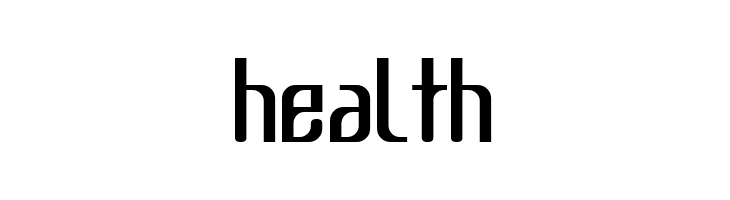
A bold, geometric font with a futuristic and industrial design.
An elegant, flowing script font with delicate, interconnected strokes.
A bold, hand-painted style font with dynamic, brush-like strokes.
A playful, handwritten font with elongated, slanted letterforms and consistent stroke weight.
A delicate and elegant font with thin, elongated strokes and slight contrast.
A thin, decorative font with elegant curls and artistic flair.
A bold, geometric font with a futuristic and industrial aesthetic.
A bold, futuristic font with angular, geometric shapes and a tech-inspired design.
Pixelated monospaced Japanese font with a retro digital style.
A casual, handwritten font with smooth, slightly slanted strokes.
A bold, detailed set of medieval and fantasy-themed icons.
A bold, geometric font with a monospaced appearance, ideal for modern designs.
A collection of intricate, ethnic-inspired geometric dingbat patterns.
A playful and whimsical font with irregular, quirky letterforms.
A playful, handwritten font with smooth, rounded edges and a casual, friendly appearance.
A playful, handwritten font with smooth curves and a casual style.
A bold, rounded font with a playful and friendly style.
A light, italic, modern sans-serif font with smooth strokes and normal spacing.
A modern, italic sans-serif font with balanced proportions and clear readability.
A sleek, modern, and thin italic font with elegant strokes.
A bold, modern sans-serif font with thick strokes and clear characters.
A modern, light sans-serif font with clean lines and balanced spacing.
A modern, semi-bold italic sans-serif font with medium contrast and normal spacing.
A bold, modern sans-serif font with thick, uniform strokes for high legibility.
A clean, modern sans-serif typeface with uniform stroke width and excellent readability.
A modern, extra light sans-serif font with clean lines and geometric structure.
A modern, thin sans-serif font with clean lines and balanced spacing.
A modern, clean sans-serif font with uniform strokes and balanced proportions.
A clean, modern sans-serif font with balanced proportions and excellent readability.